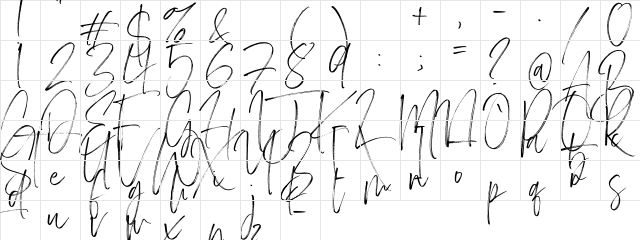
Carlinet Regular
Design Context for Carlinet Typeface
Carlinet is a composed and adaptable typeface that performs quietly and consistently across a wide range of design contexts.
Pro Tip: Pair Carlinet with a font of contrasting weight or personality to build a more expressive typographic hierarchy.